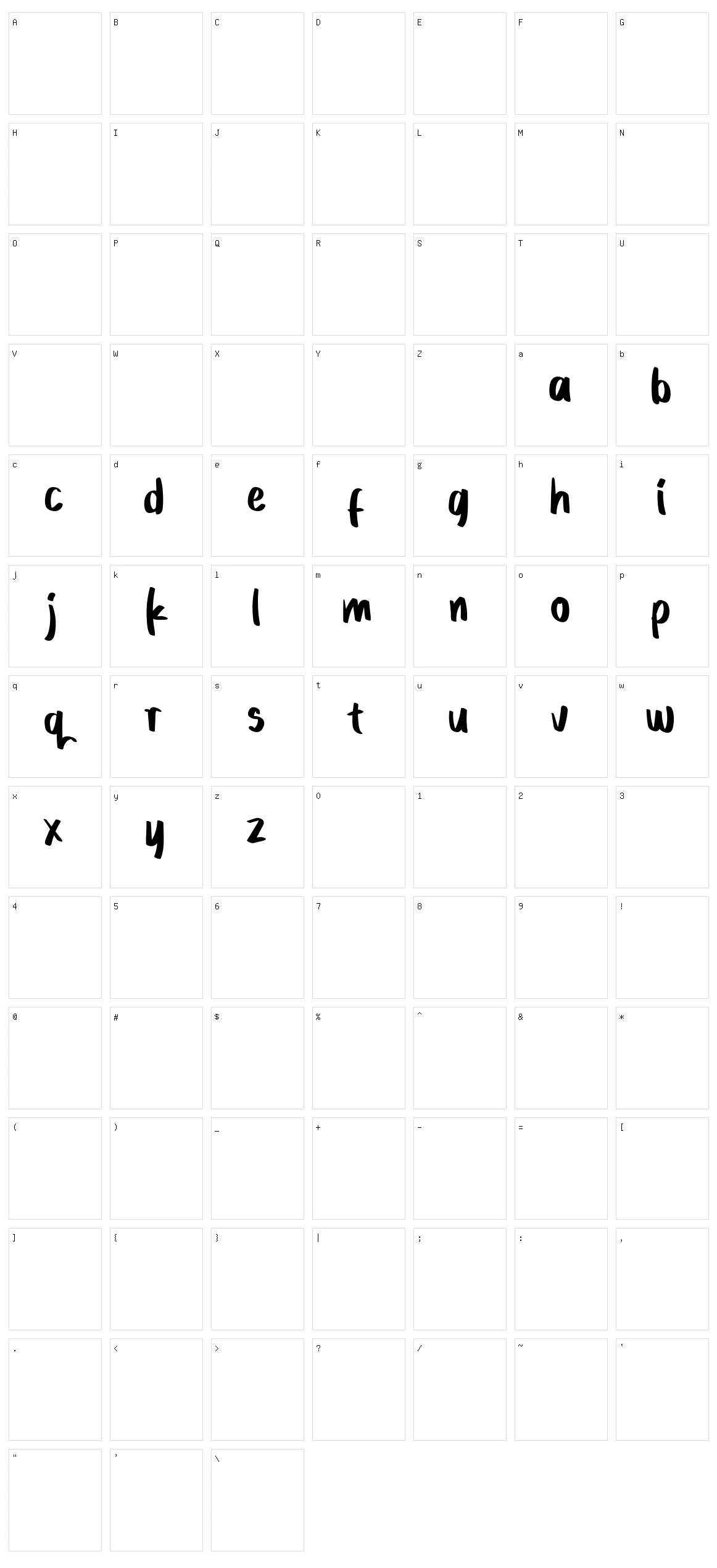
The free font Hellobye is carefully designed by Dicubit, showcasing a thoughtful balance of creativity and usability and falls under the Script font style. When you download the ZIP file, it contains only 12.27 KB of font files, making it lightweight and quick to download. Please review the license details below to understand permitted usage and distribution rights. If license information is not available, we recommend using this font for personal projects only or contacting the author directly for commercial usage permissions.